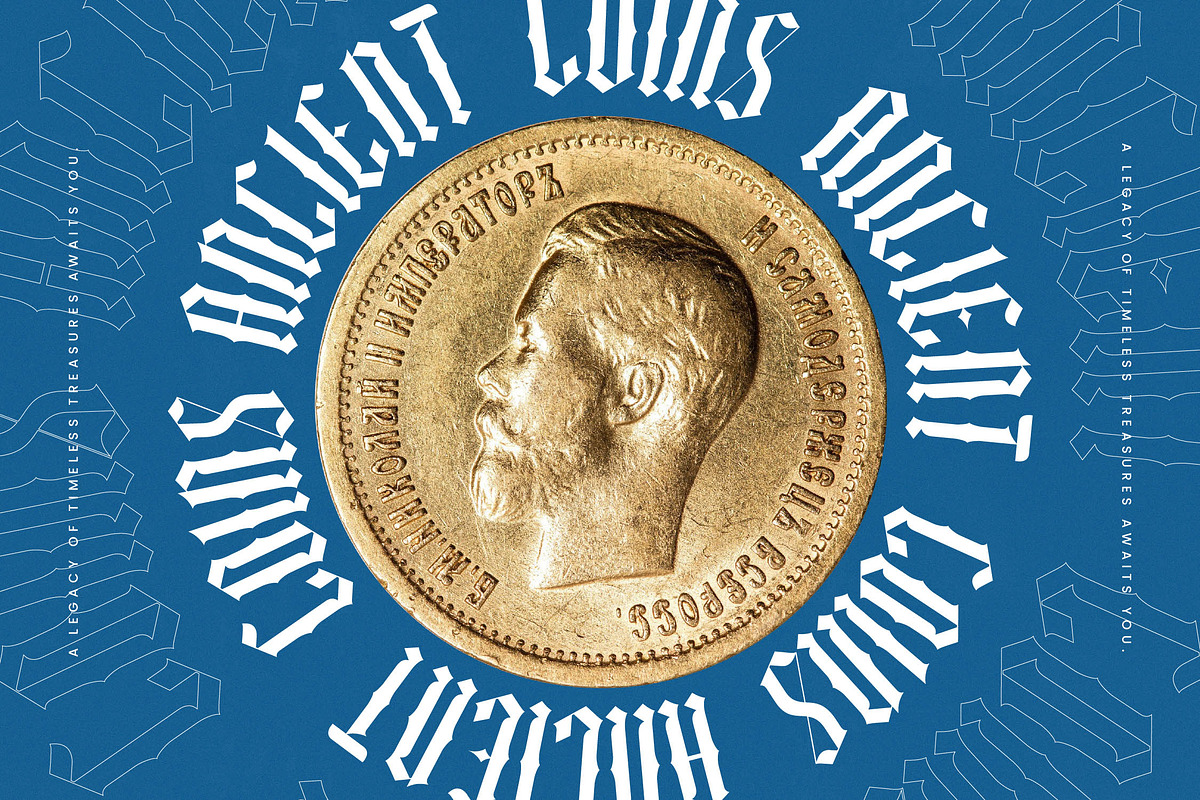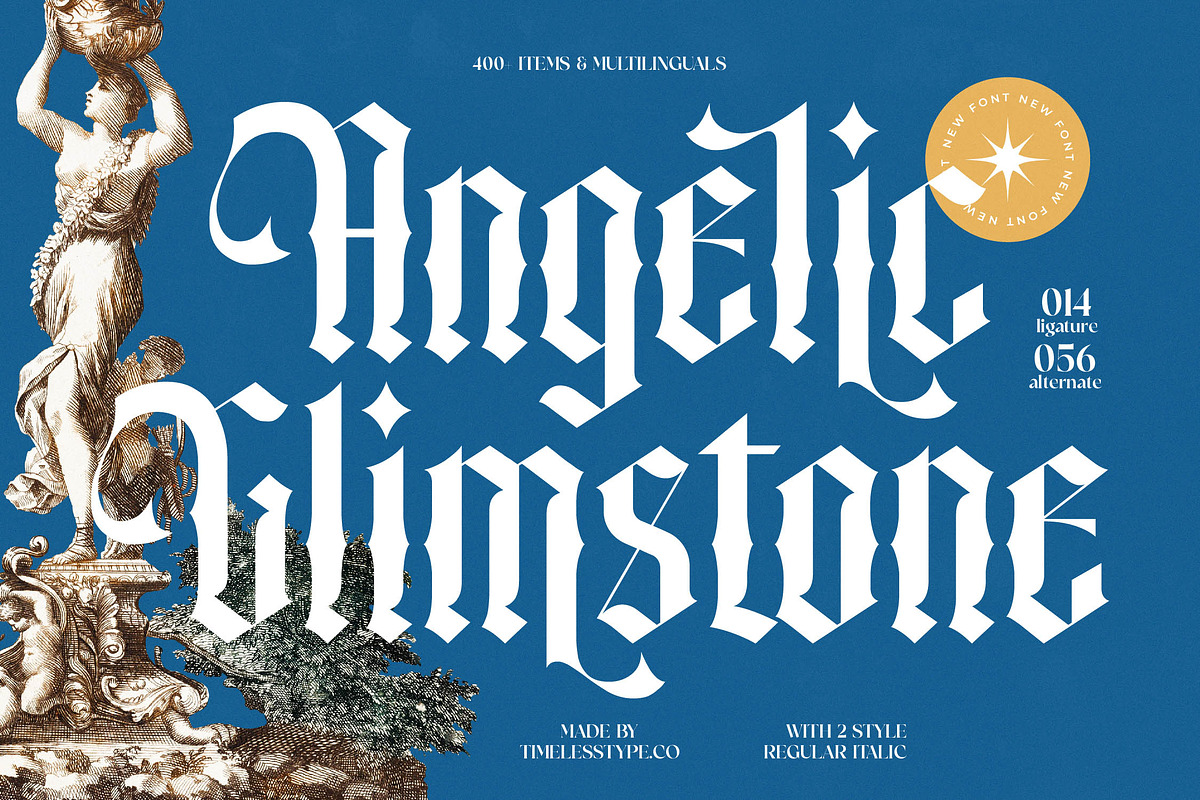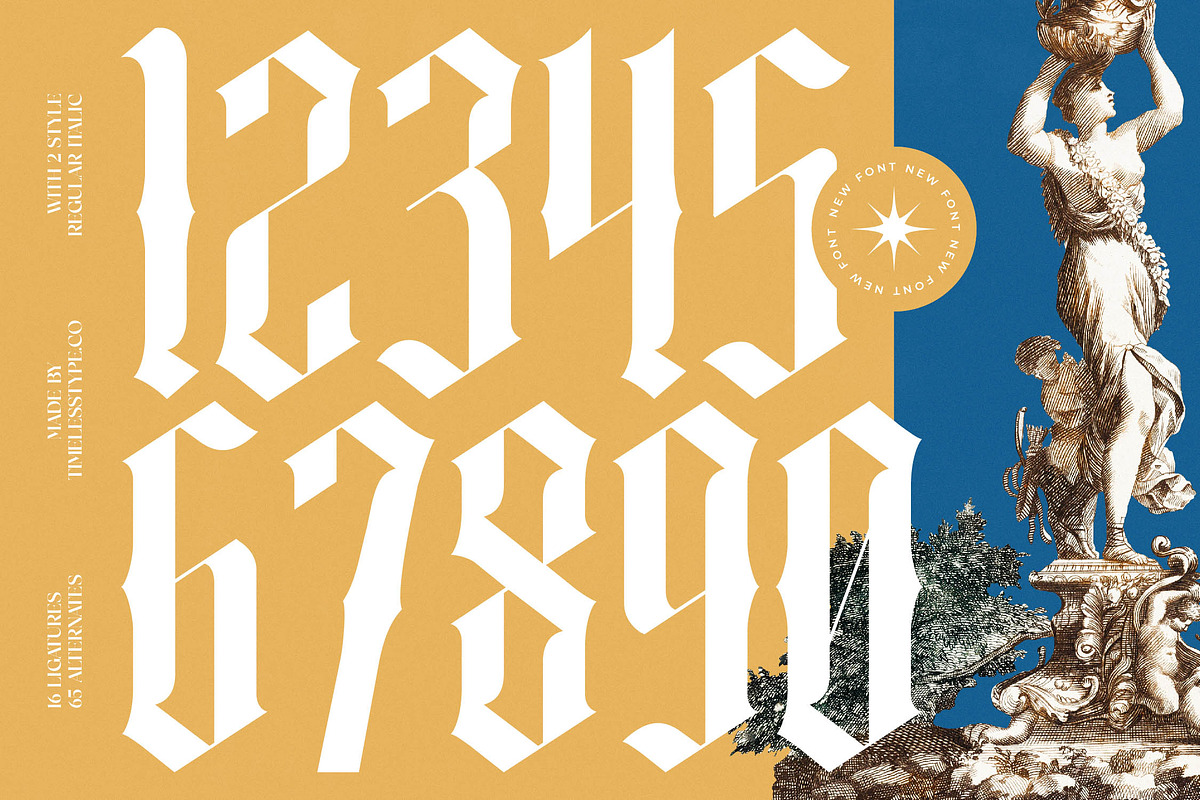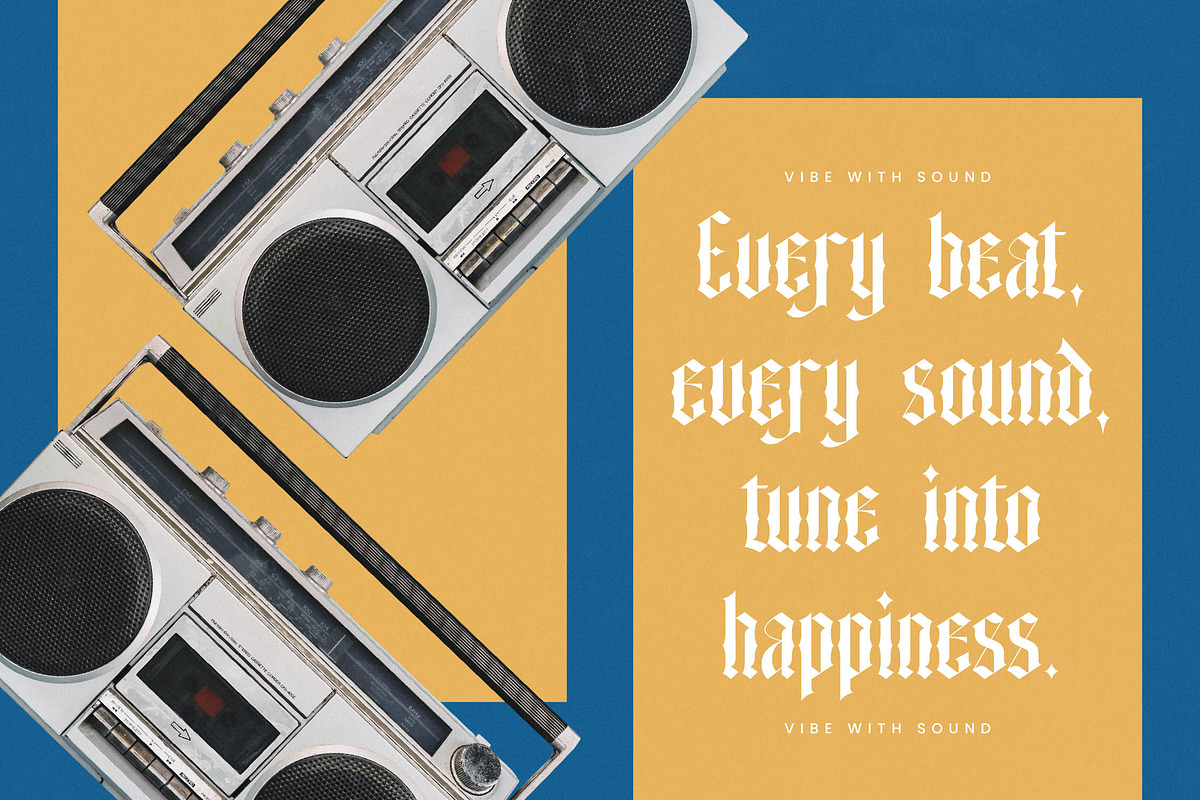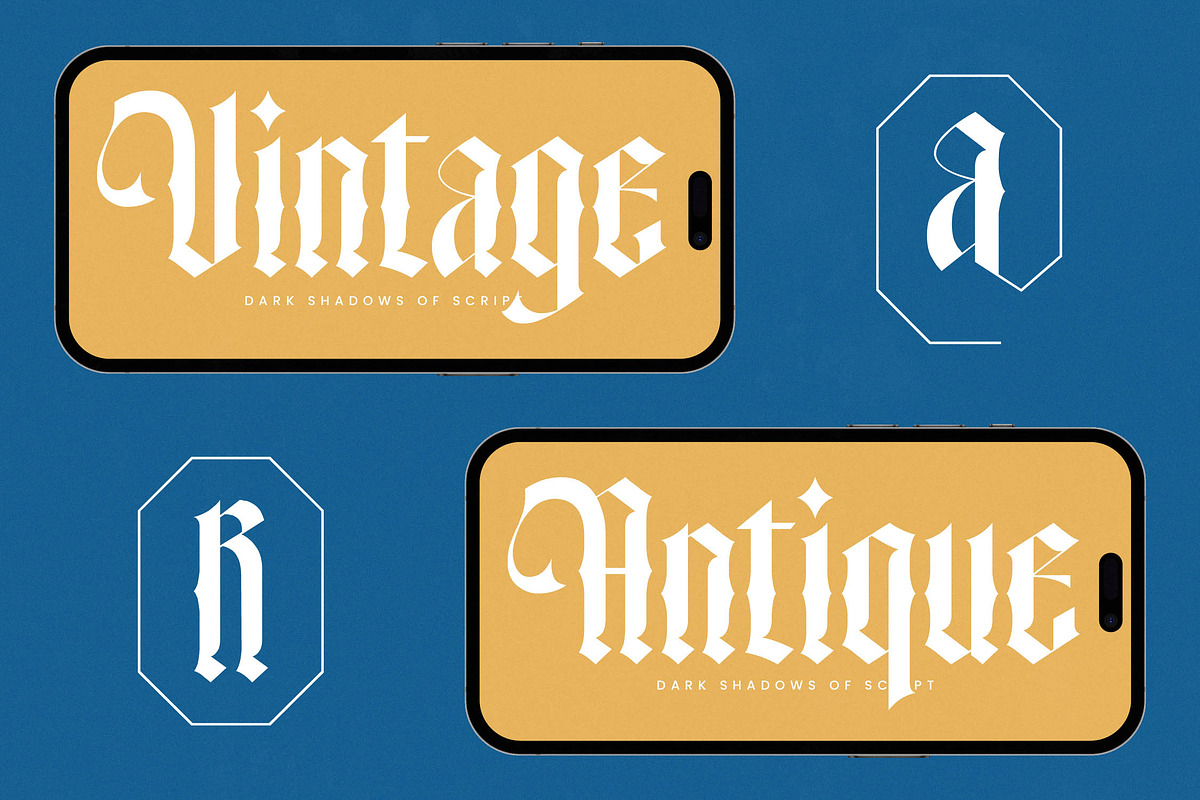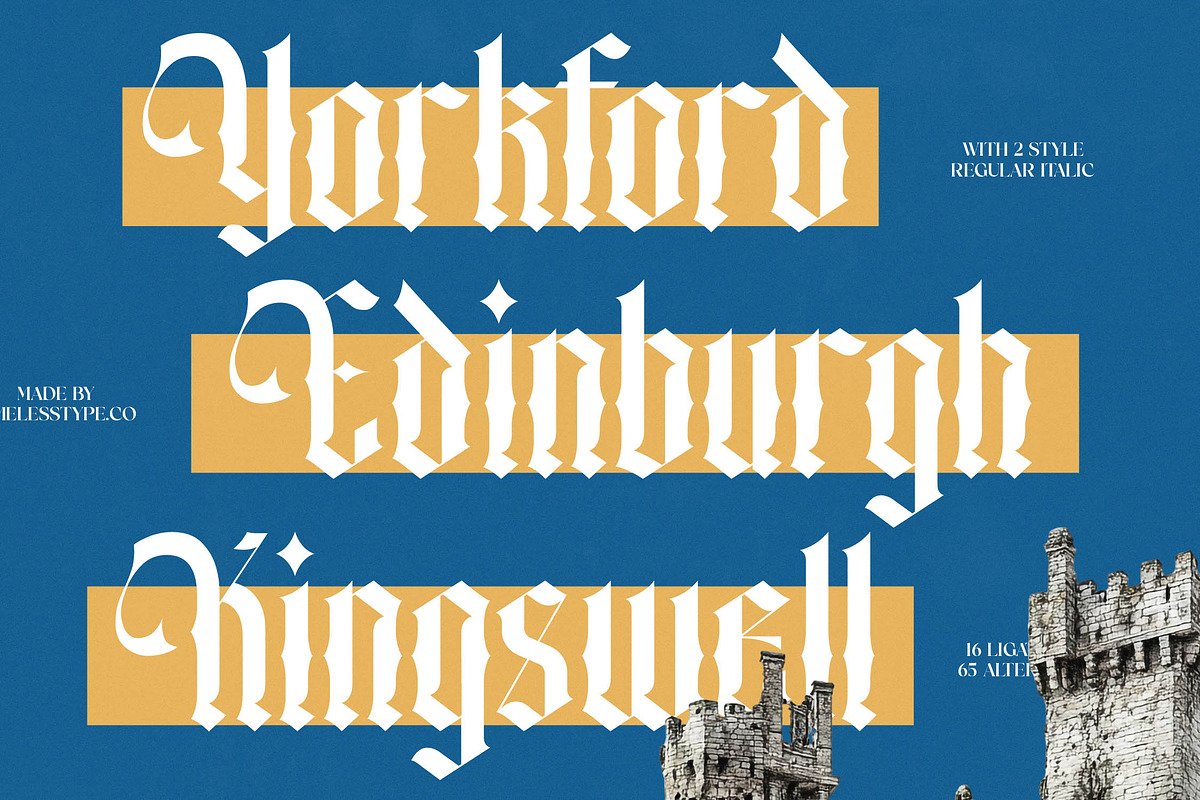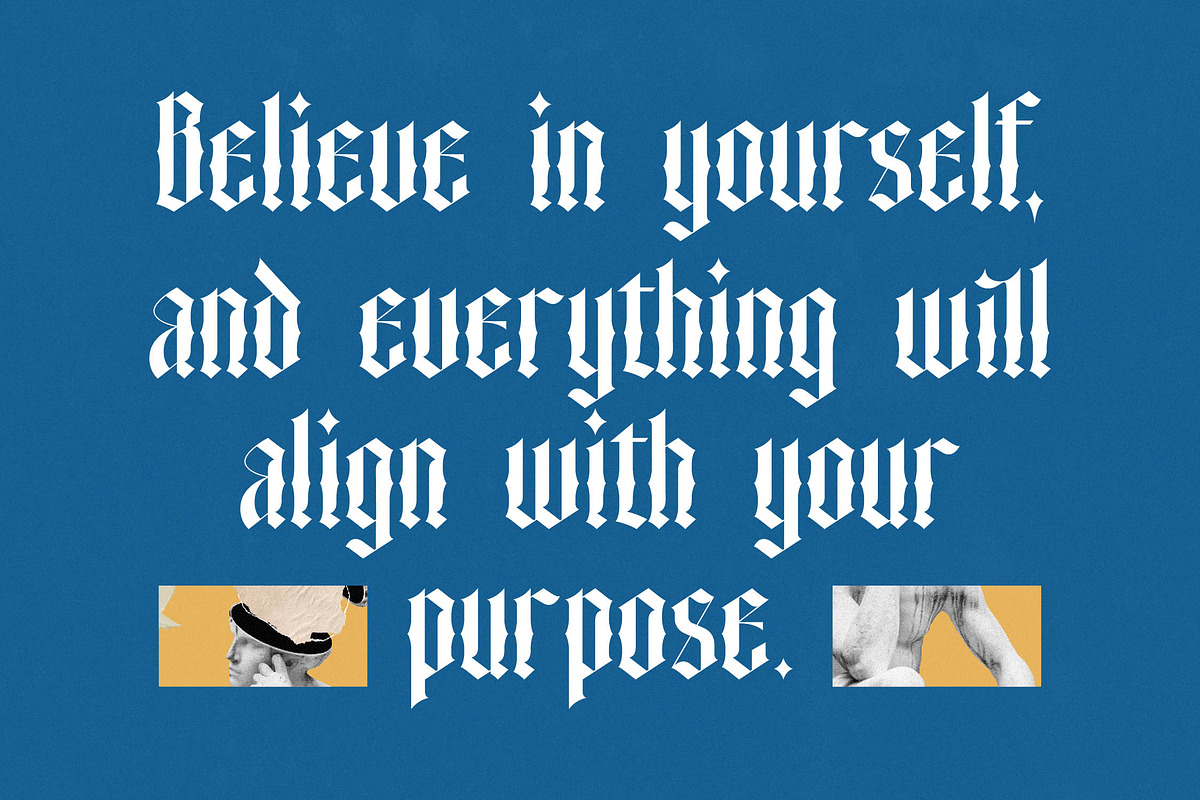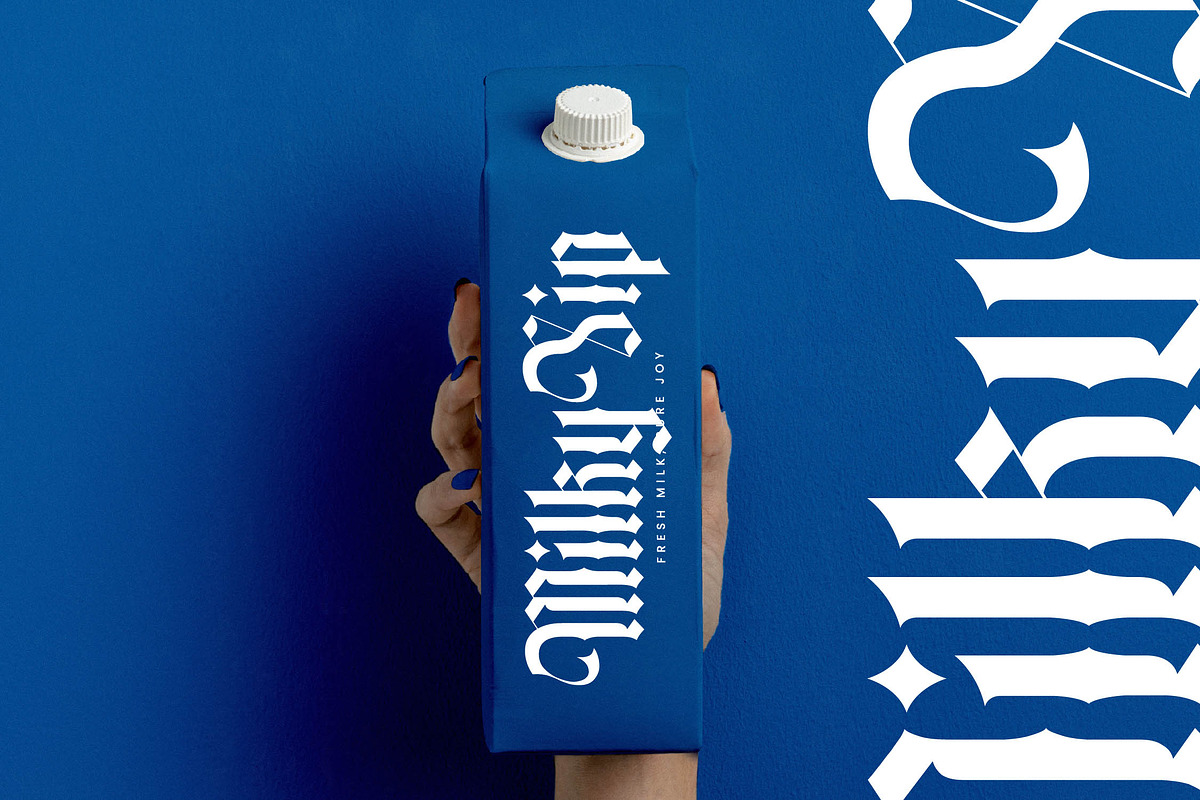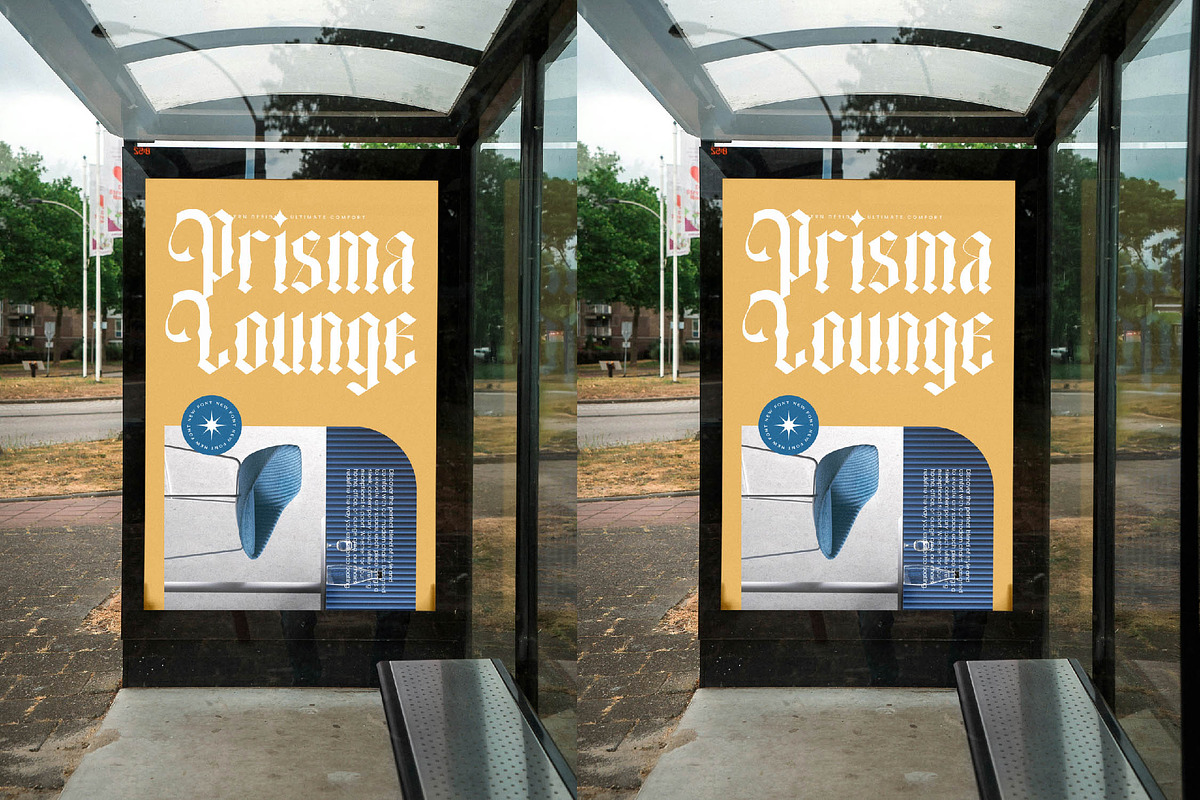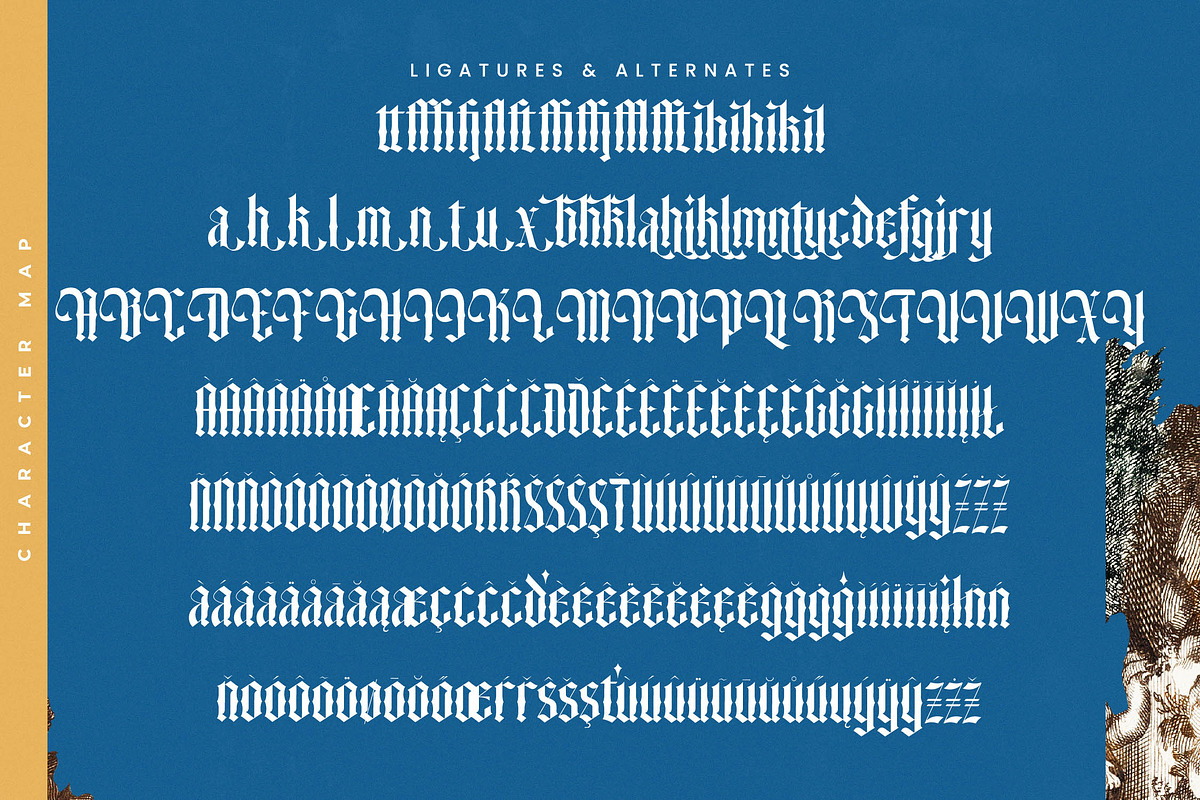
Angelic Glimstone Modern Gothic
Angelic Glimstone is a breathtaking fusion of celestial elegance and razor-sharp precision, designed to elevate your visual storytelling to divine heights. This font captures the essence of sophisticated drama, making every character a masterpiece of modern design.
Inspired by the intricate stone carvings of ancient cathedrals and the fluid grace of classical sculptures, this typeface reimagines traditional blackletter forms for a contemporary era. It bridges the gap between historical weight and light, ethereal aesthetics, evoking a sense of timeless mystery.
Commanding attention through its modern serif display structure, this font delivers a powerful branding impact that resonates with luxury. Its high-contrast serif terminals and unique silhouettes provide a luxury typography experience perfect for any editorial font project requiring a bold, distinct voice.
Riding the wave of the modern serif trend, this typeface aligns perfectly with the current demand for character-driven typography in high-end markets. It stands out among editorial display fonts by offering a sharp, edgy alternative to traditional serifs while maintaining a polished professional look.
This versatile face is the ultimate choice for high-impact logo design and comprehensive branding identity systems. Whether used for avant-garde editorial layouts, luxury packaging, bespoke wedding invitations, or high-concept fashion campaigns, it brings an unmistakable aura of prestige.
The package is loaded with over 400 glyphs, including a vast array of ligatures and alternates to customize your layouts. With full multilingual support and a wide range of international characters, plus swashes for added flair, it ensures global reach and creative flexibility.
- Ligature 014 Alternate 056